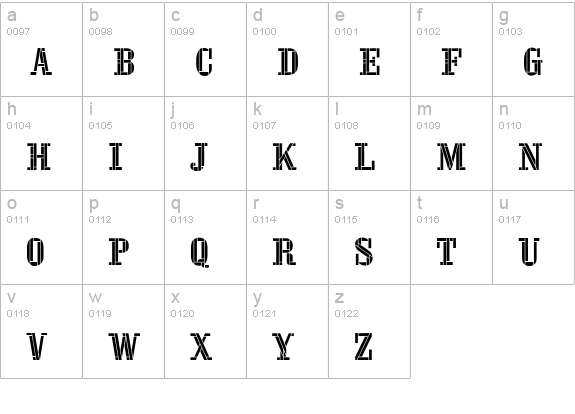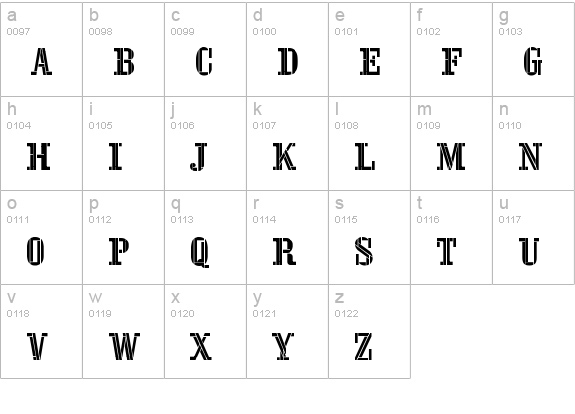
Stencil Four Font Details
Stencil Four font is a striking and bold typeface that exudes a sense of strength and confidence. With its distinctive stencil design, this font is perfect for making a statement in your designs. The sharp edges and clean lines of Stencil Four font add a modern and industrial touch to any project. What sets Stencil Four font apart is not only its unique design but also the fact that it is available for free download at FontsMarket.com. This means that you can easily add this eye-catching font to your collection without any cost. Whether you're working on posters, logos, banners, or any other design project, Stencil Four font is sure to make a bold impact. Download it now and unleash your creativity with this versatile and dynamic typeface.